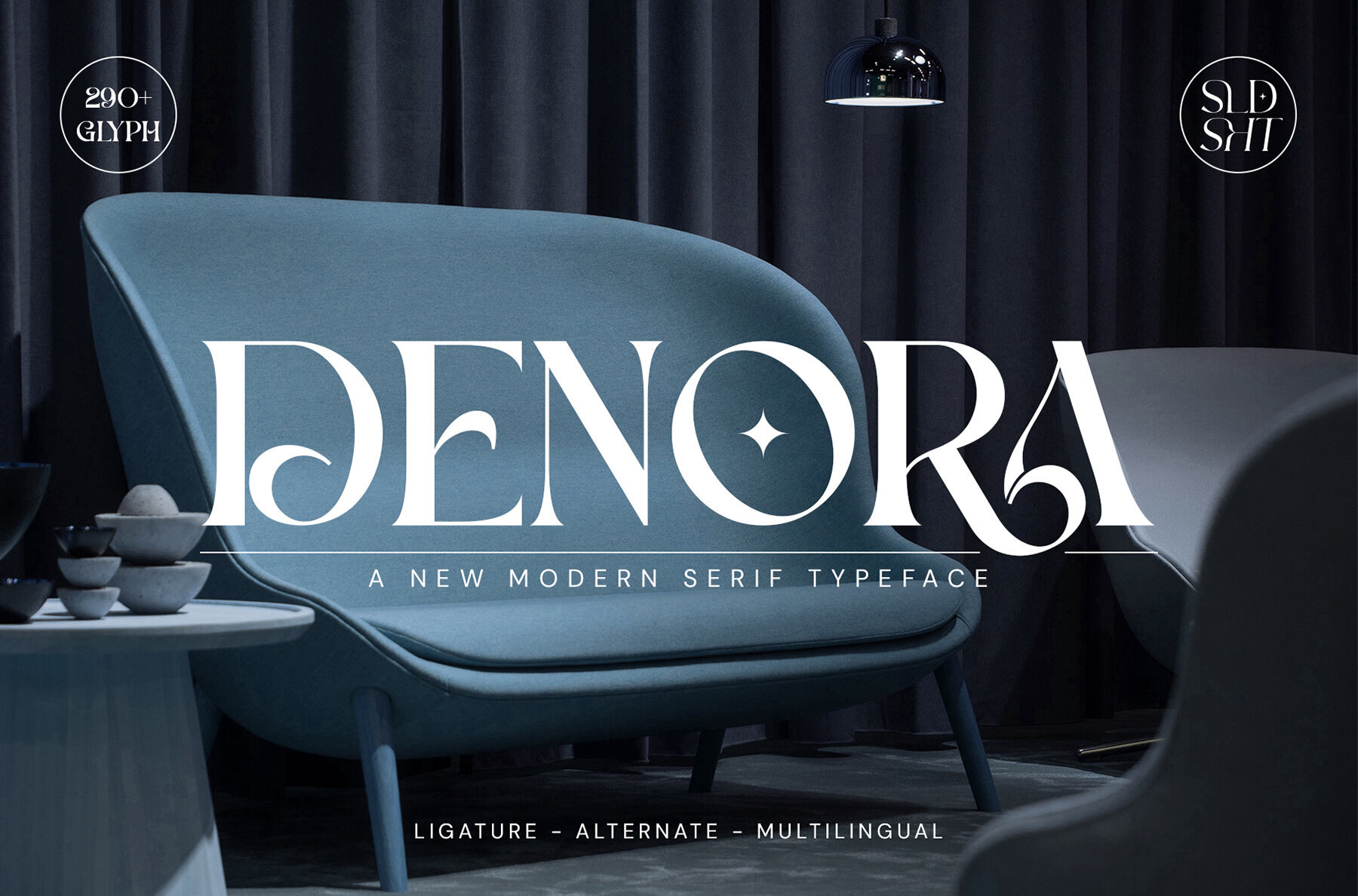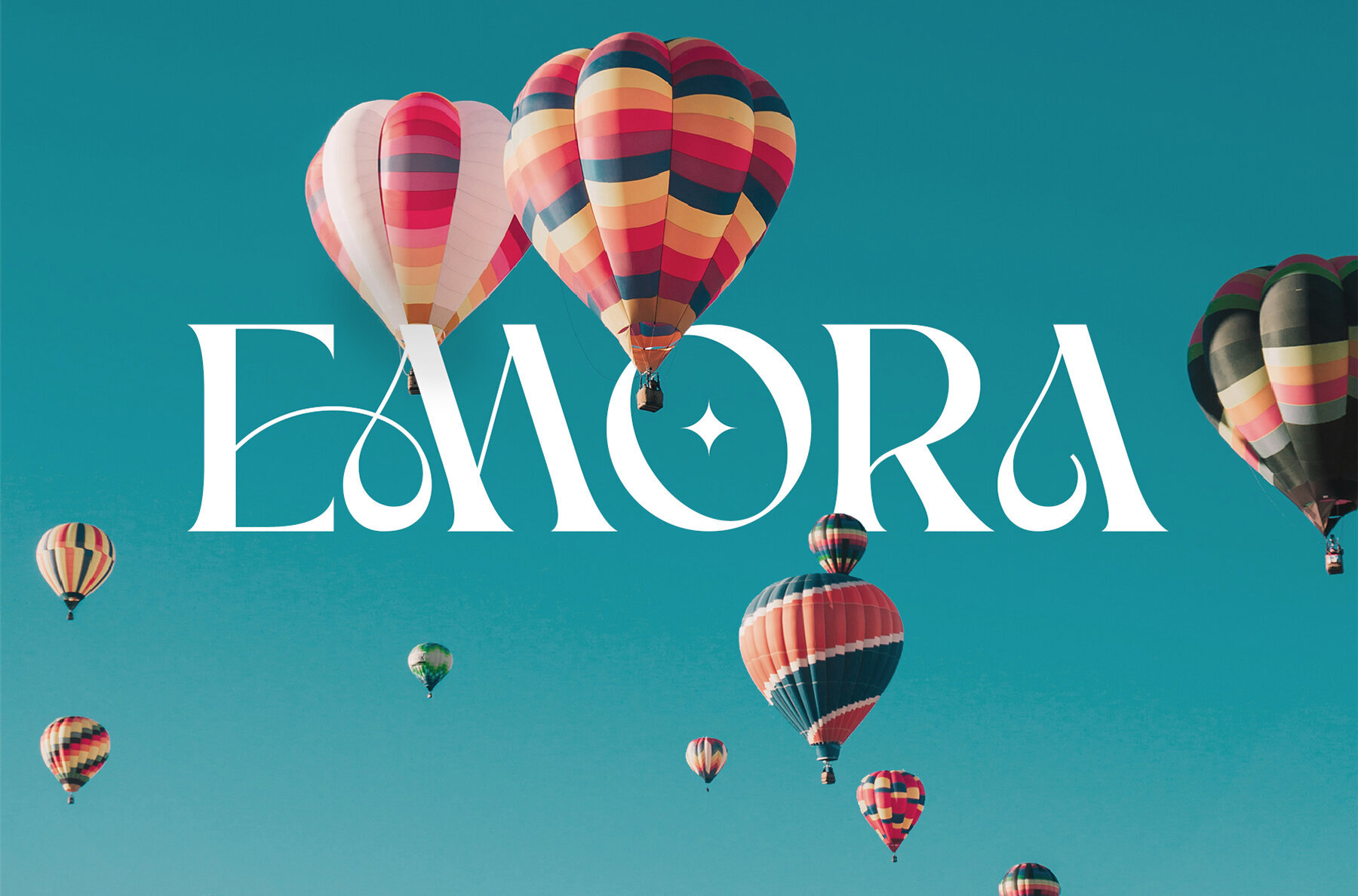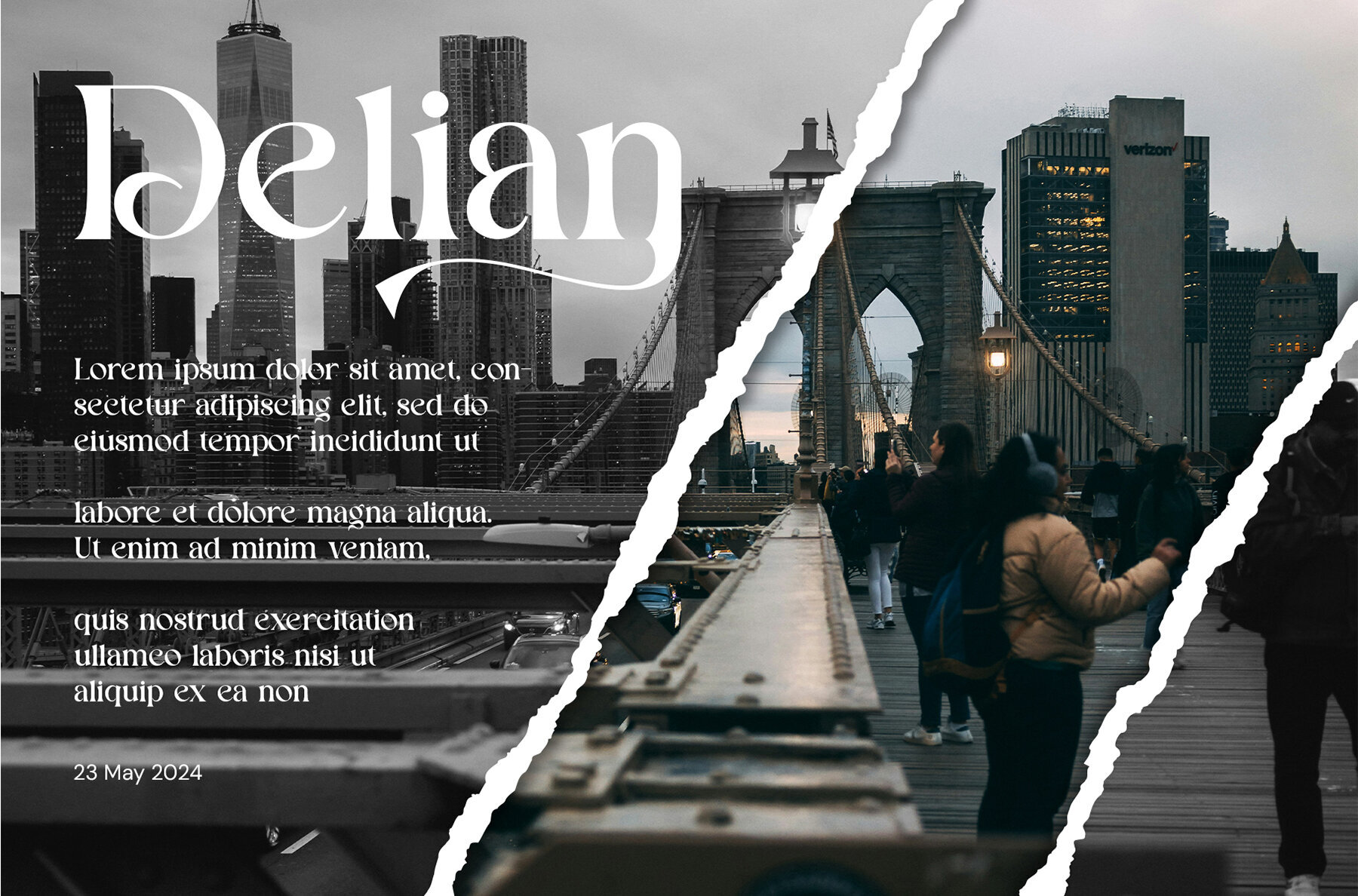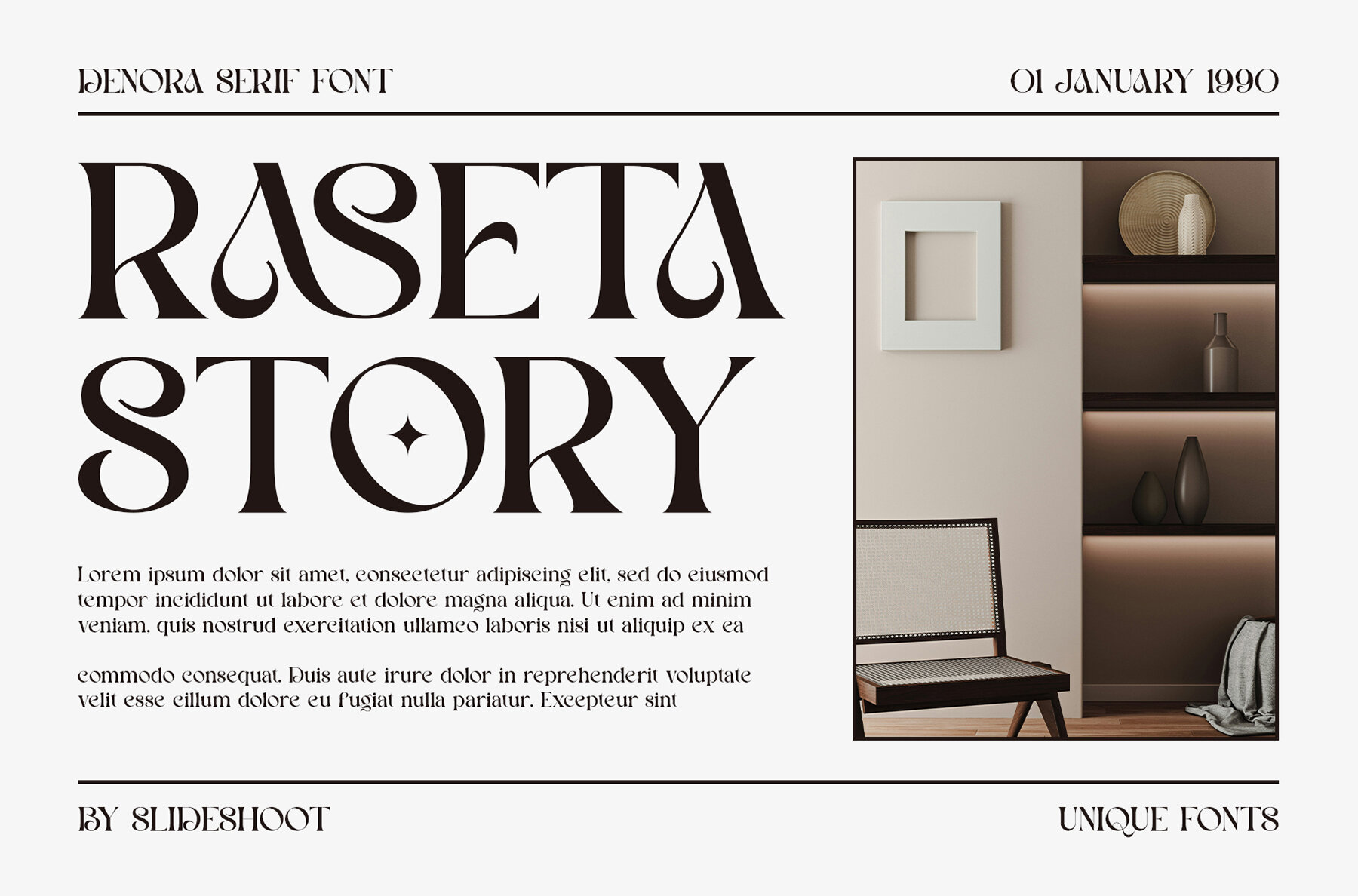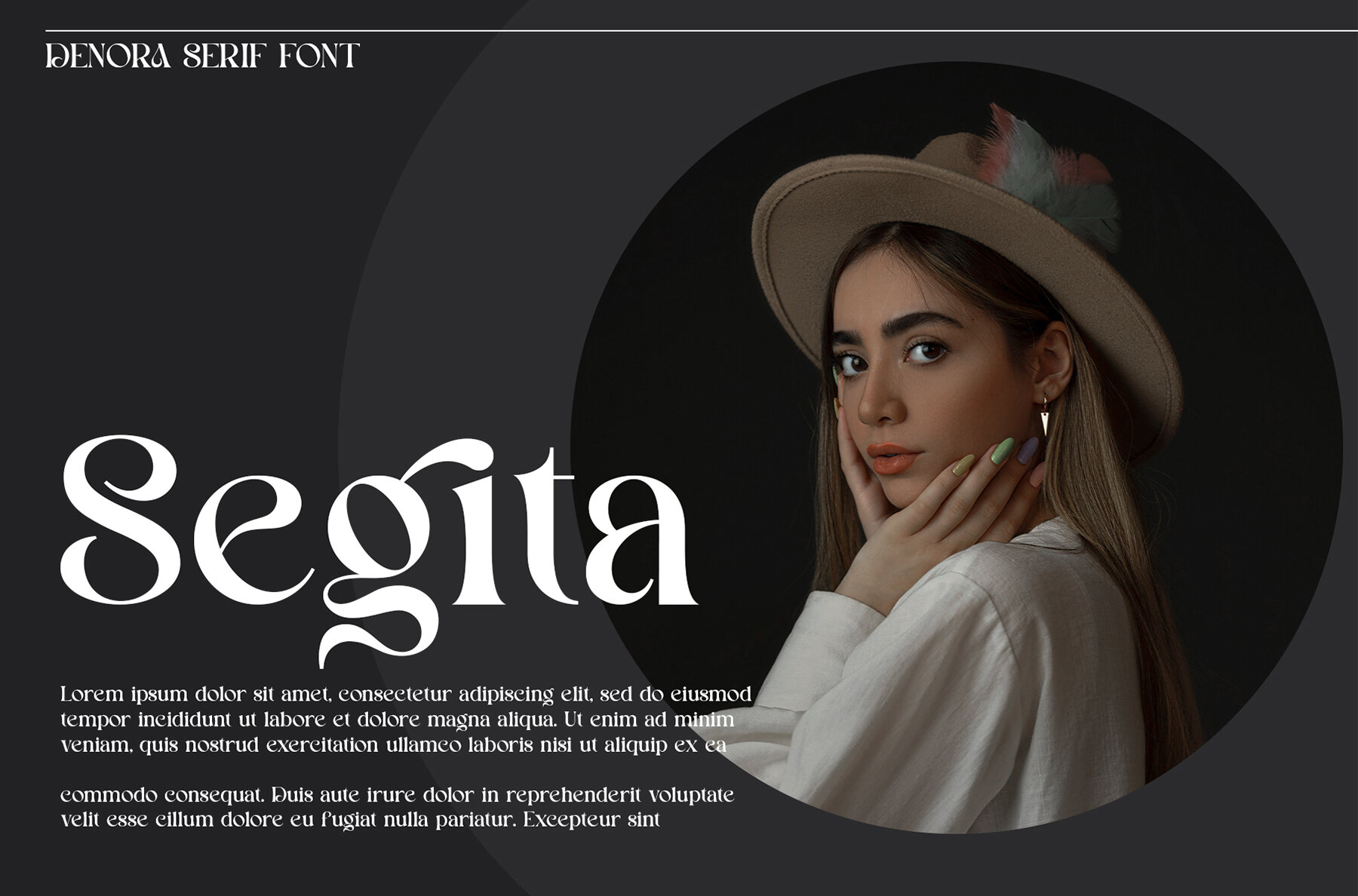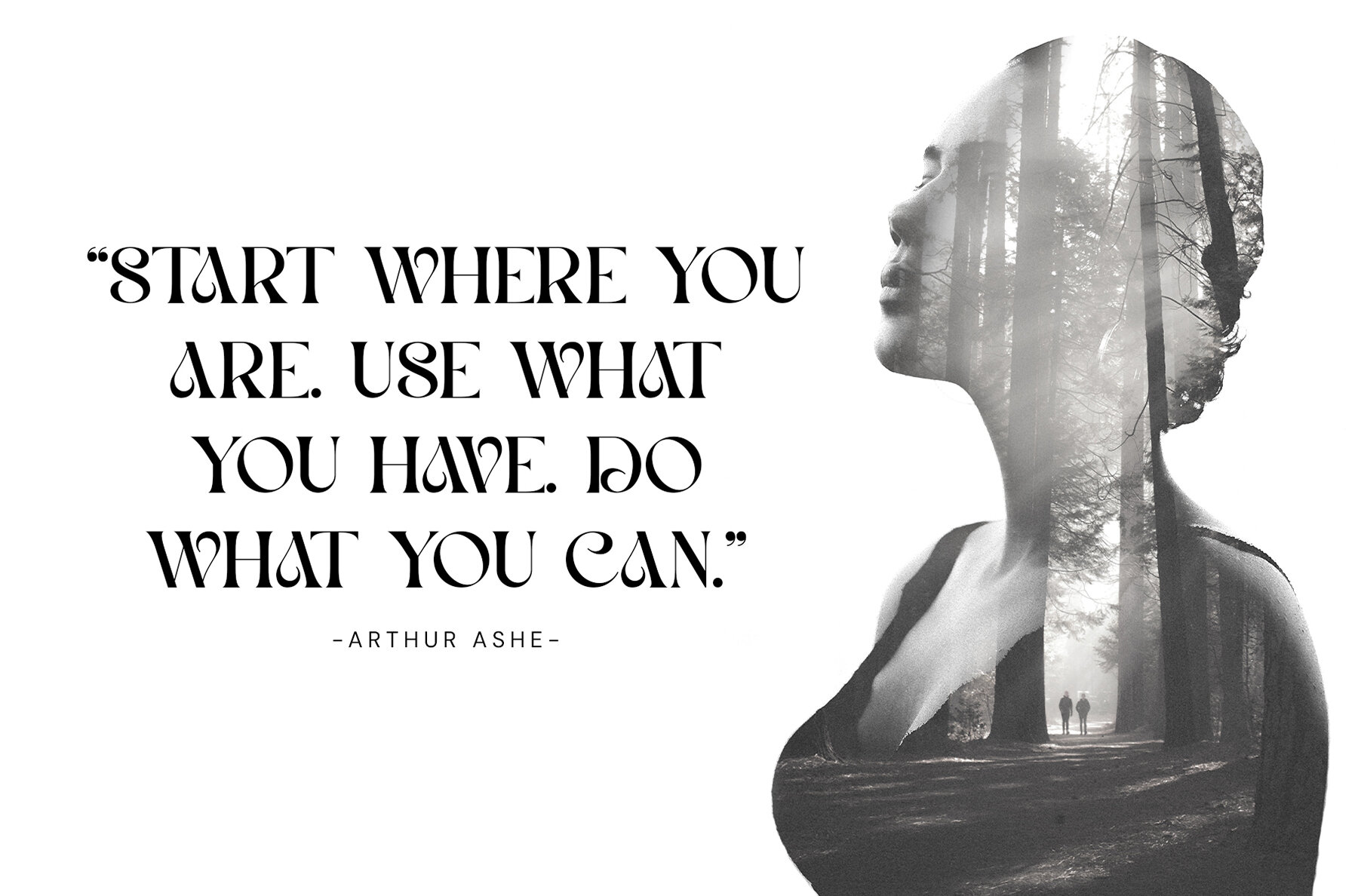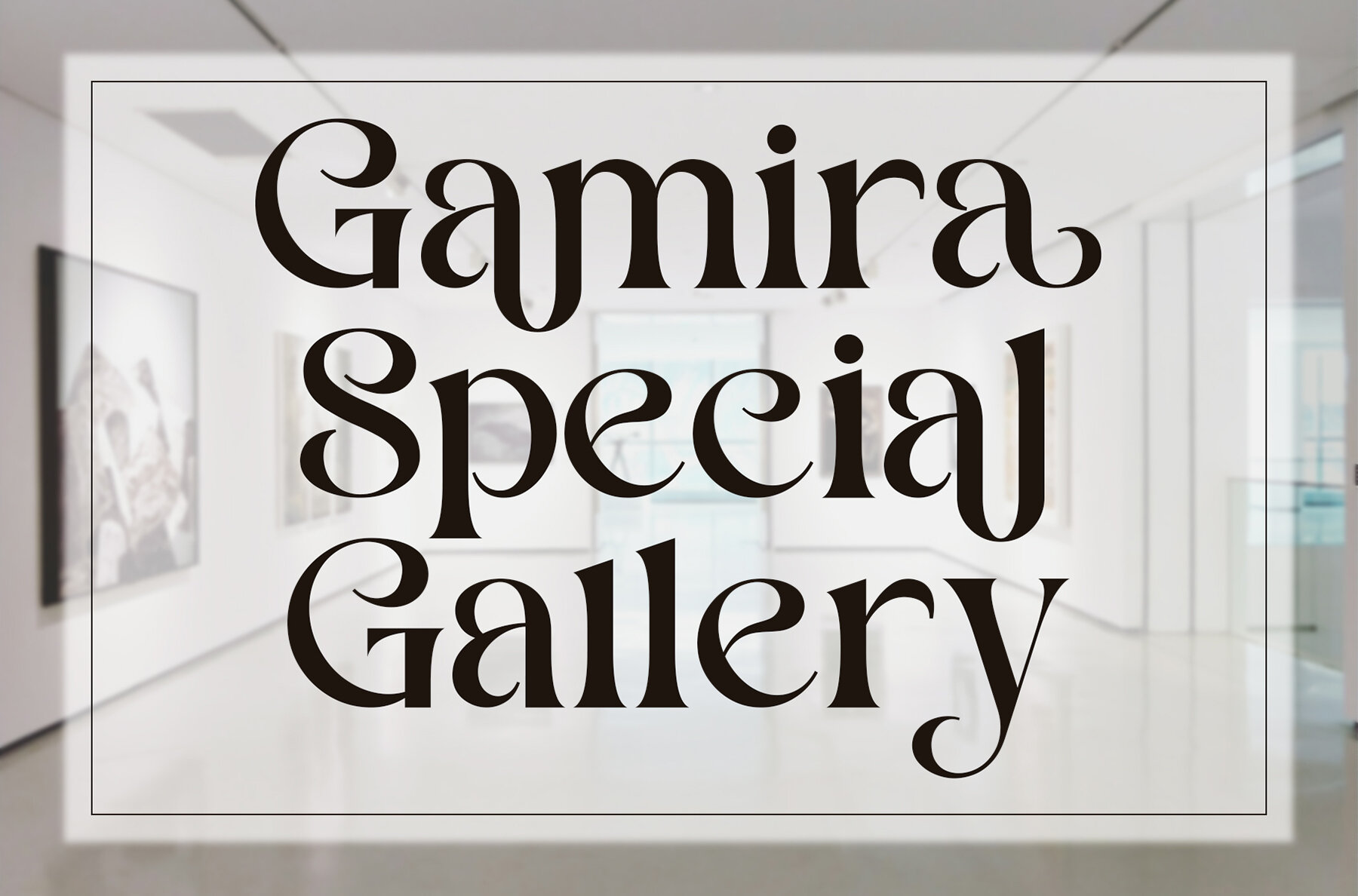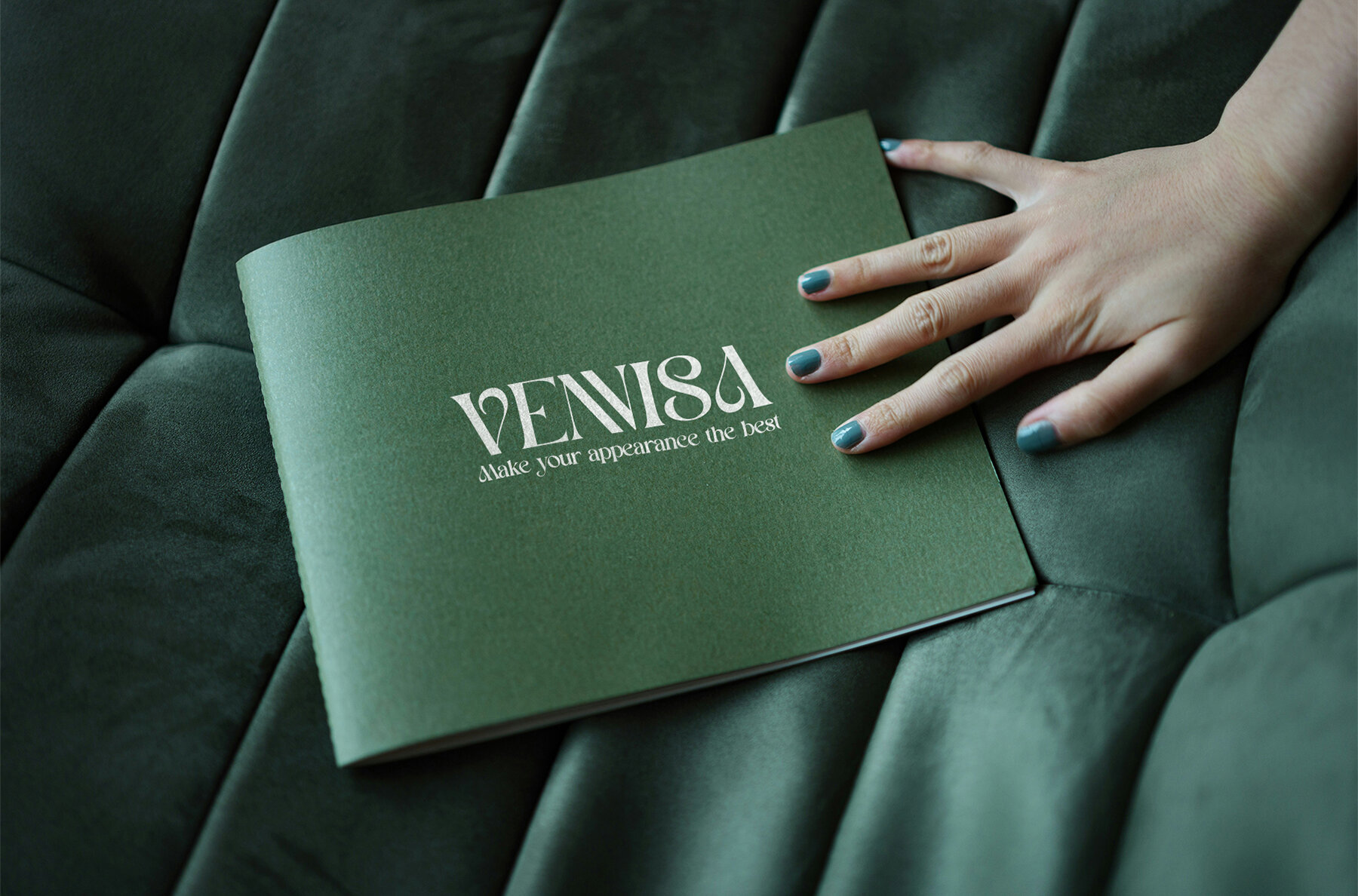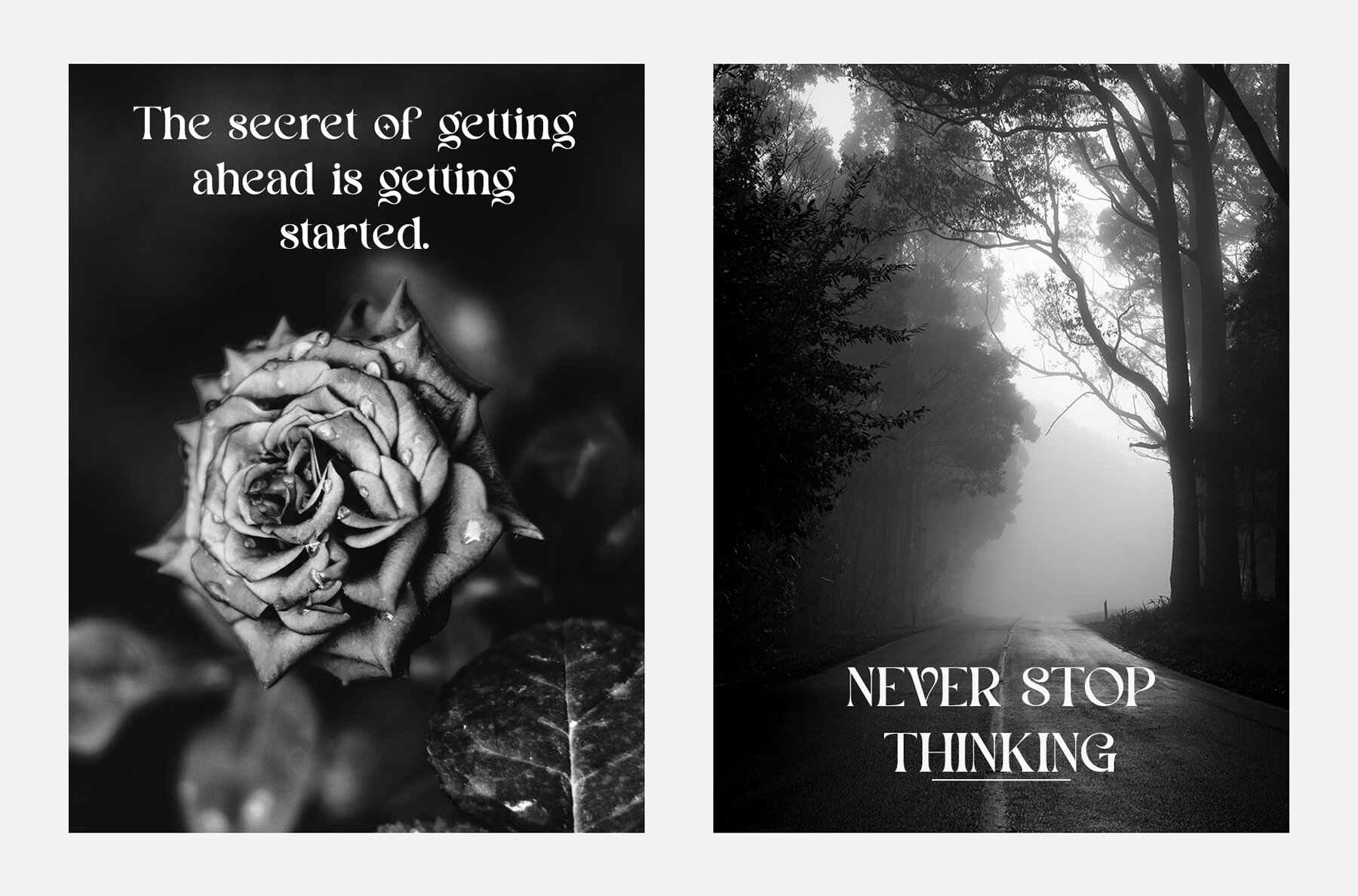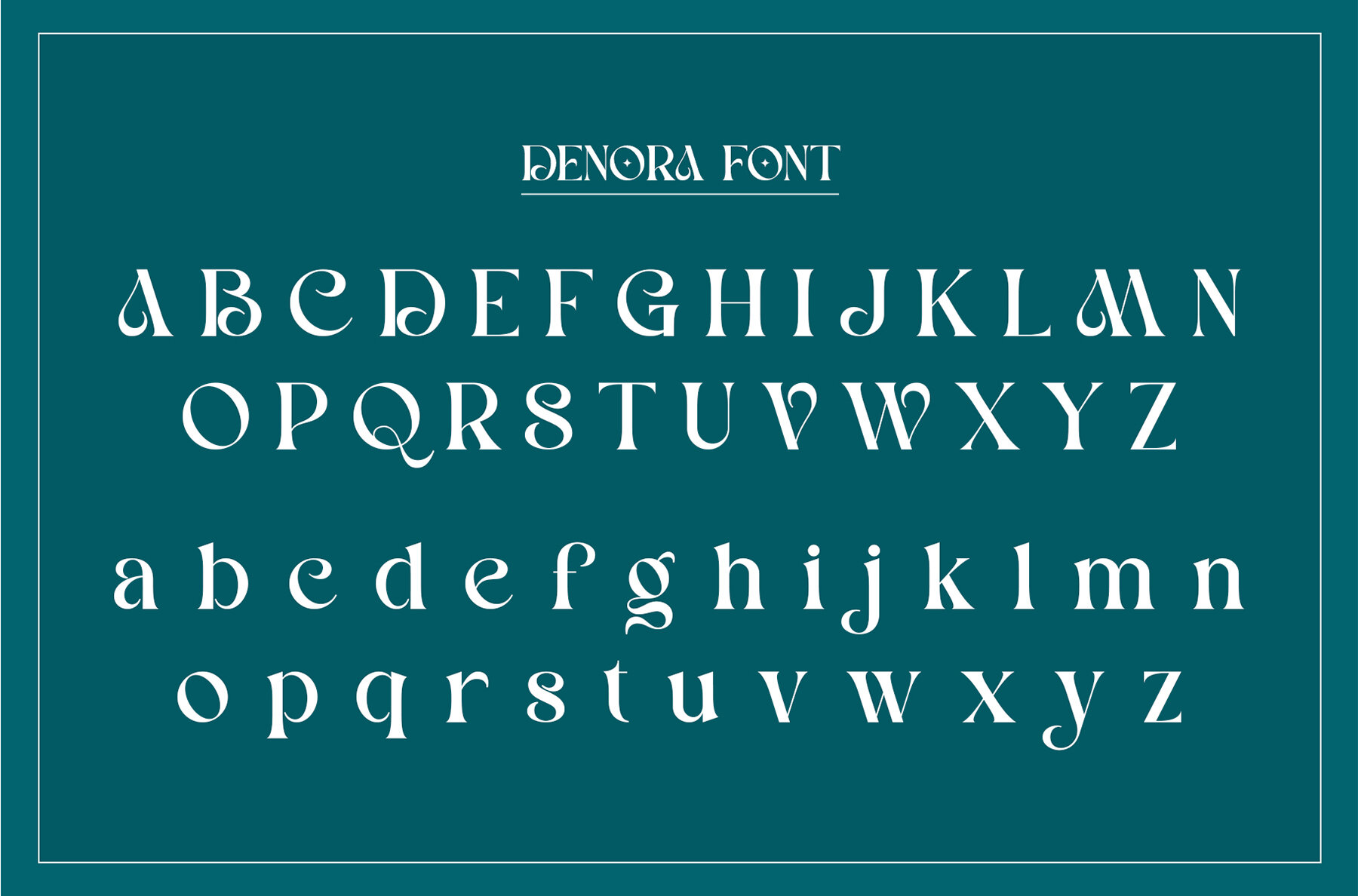
Denora Font
Denora
Denora Serif is an exquisitely crafted serif font that embodies balance, elegance, and style. Its graceful character makes it an ideal choice for a variety of design projects, including invitation cards, company logos, movie titles, business cards, and book titles. This subtle serif font is characterized by its sophisticated and refined appearance, making it a versatile option for any branding needs or creative endeavors.
Denora Serif offers unique stylistic alternations and ligatures that enhance its elegance, adding a touch of sophistication to your work. It includes both uppercase and lowercase letters, along with comprehensive numbering and punctuation. Designed for user-friendly installation, Denora Serif is compatible with both PC and Mac. It seamlessly integrates with popular design tools such as Adobe Illustrator, Adobe Photoshop, Adobe InDesign, and even Microsoft Word, ensuring a smooth design process regardless of your preferred software.